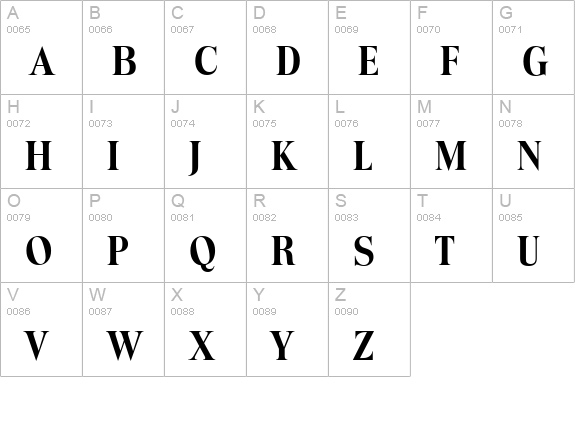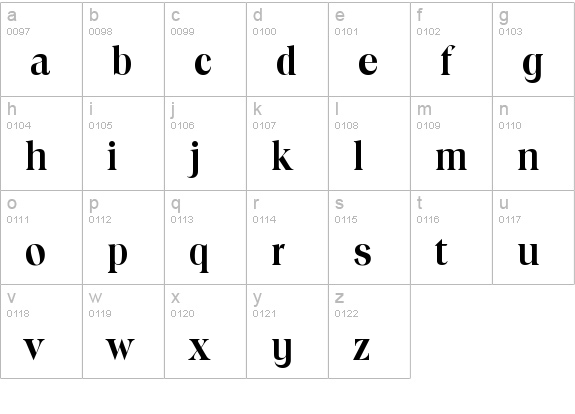
ToledoSerial-Bold is a strong, high-contrast variant in the ToledoSerial typeface family \xE2\x80\x94 well suited to headlines, attention-grabbing titles, and strong calls-to-action.
ToledoSerial-Bold is a bold and eye-catching font that exudes strength and confidence. Its clean lines and sharp edges make it perfect for headlines, titles, and any design project that requires a touch of modern sophistication. This versatile typeface commands attention and leaves a lasting impression. Best of all, ToledoSerial-Bold is available for free download at FontsMarket.com. Whether you're a designer looking to add a bold statement to your work or a business owner in need of a powerful font for branding, ToledoSerial-Bold is the ideal choice. Download it today and elevate your design projects to new heights with this striking typeface.